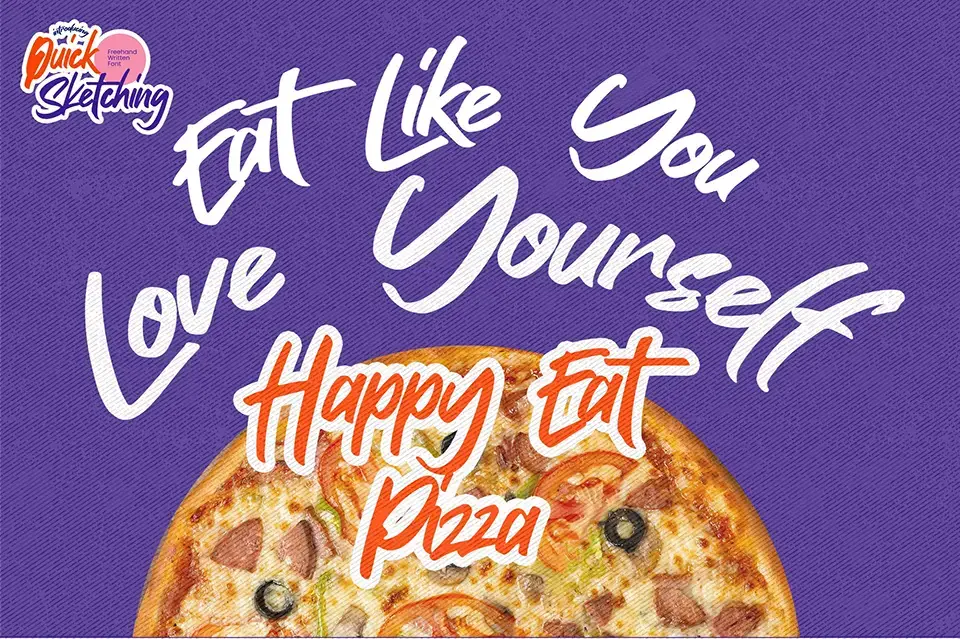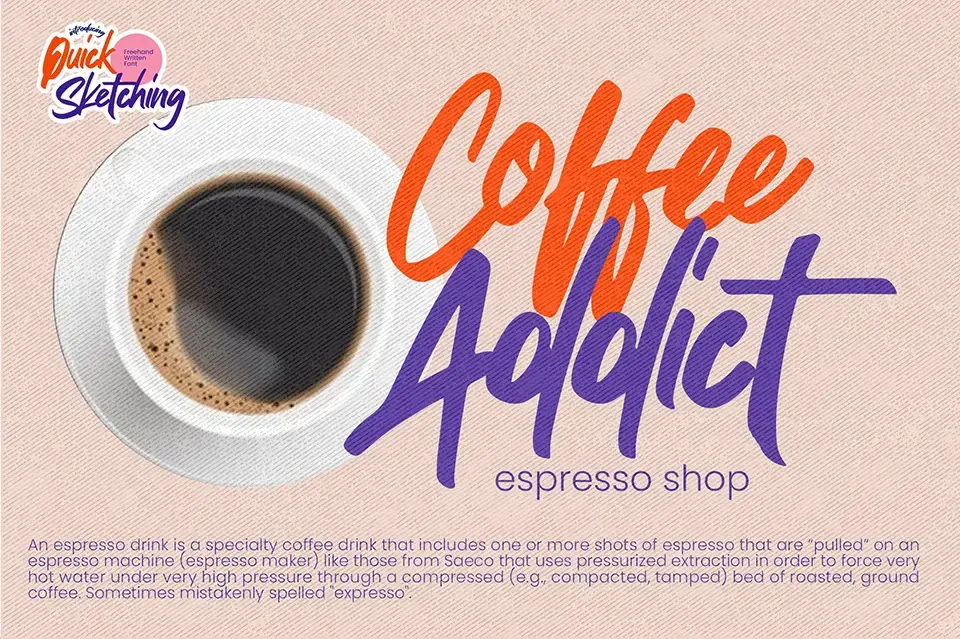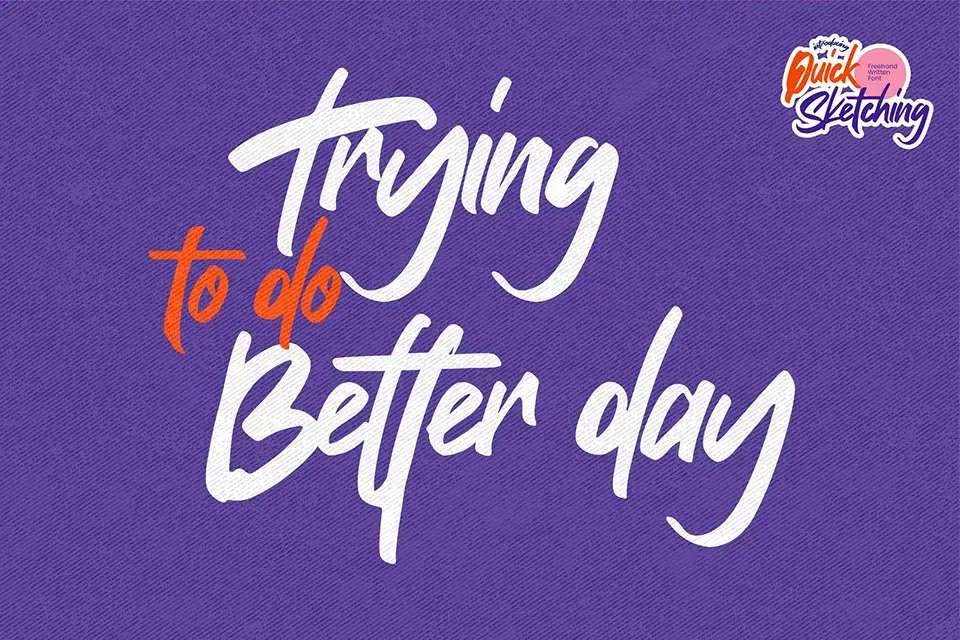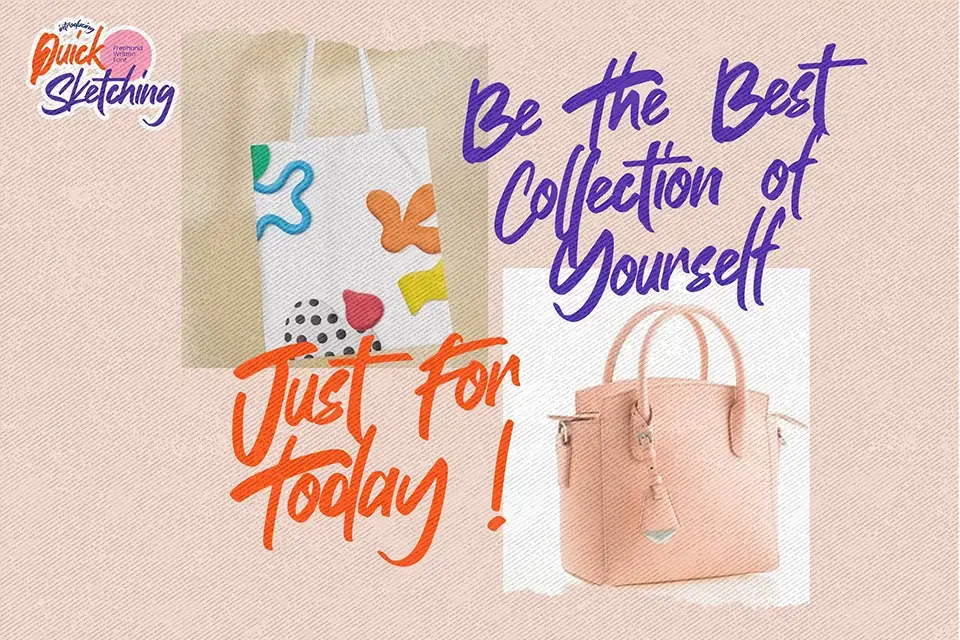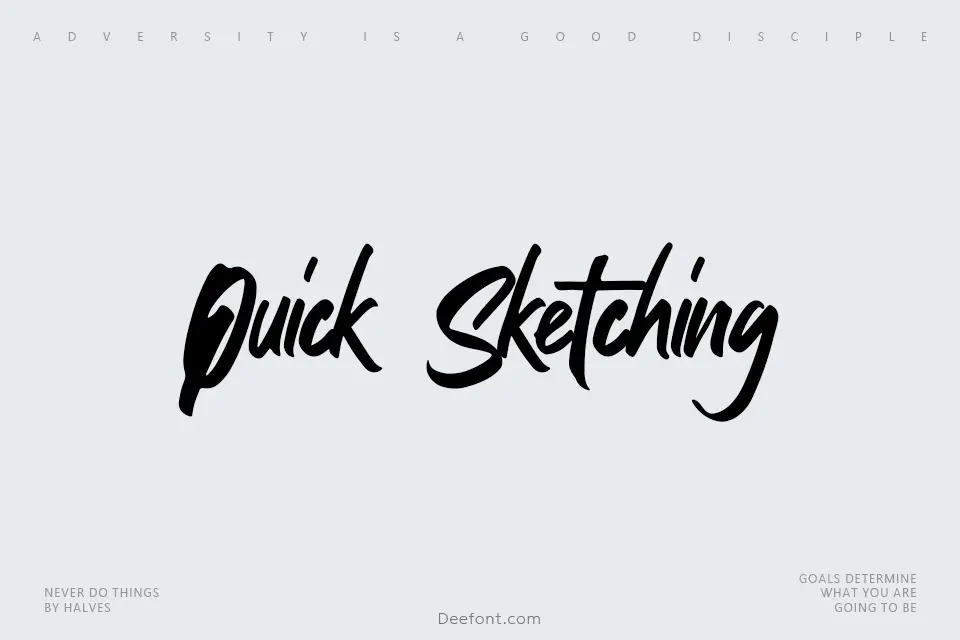
Quick Sketching Font
Quick Sketching Font is a dynamic handwritten typeface that captures the essence of authentic hand-drawn artistry with dramatic, organic brush strokes and imperfect letterforms. Created for designers seeking spontaneous, expressive typography, this display script excels in poster designs, creative headlines, artistic titles, and decorative applications. Its fluid movement and sketchy aesthetic add personality and charm to projects requiring a handmade feel, making it ideal for creative branding, event invitations, album artwork, and contemporary design work that values artistic authenticity over precision.